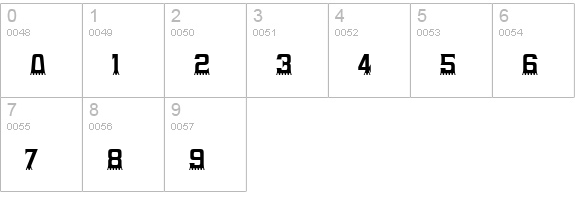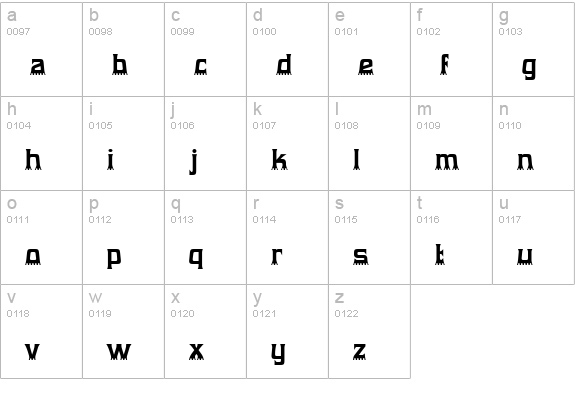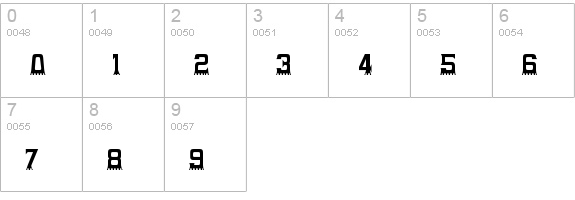
Gumtuckey Font Details
Introducing Gumtuckey font, a charming and whimsical typeface perfect for adding a touch of playfulness to your designs. With its unique hand-drawn style and quirky features, Gumtuckey is sure to stand out and make a statement. This delightful font is ideal for a variety of projects, from invitations and greeting cards to posters and social media graphics. The best part? Gumtuckey font is completely free to download at FontsMarket.com. So go ahead and unleash your creativity with this fun and versatile font today!